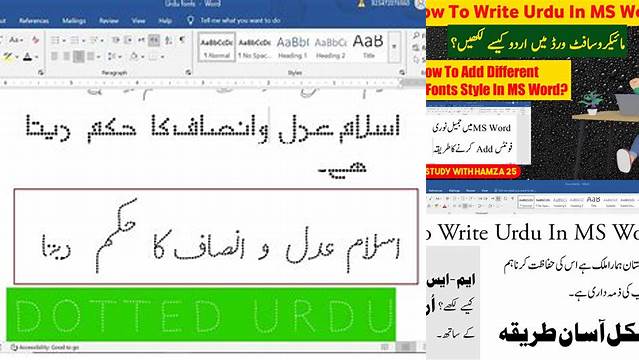
Free Urdu Tracing Fonts For MS Word: Your Download Guide
Hey everyone! Today, we're diving into something super cool for all you Word users out there who love working with Urdu. We're talking about Urdu tracing fonts for MS Word free download. If you're into calligraphy, design, or just want to make your Urdu documents look extra special, finding the right fonts is key. And guess what? You don't need to break the bank to get awesome ones! This guide is all about helping you find and download those perfect Urdu tracing fonts that will make your Microsoft Word projects pop. We'll cover what they are, why you might need them, and most importantly, where you can snag them for free. So, grab your favorite drink, get comfy, and let's explore the fantastic world of Urdu fonts together! It’s going to be a breeze, I promise!
Understanding Urdu Tracing Fonts for MS Word
Alright guys, let's get down to business and understand what exactly we mean by Urdu tracing fonts for MS Word. Think of tracing fonts as those special typefaces designed to guide you through writing or calligraphy. They often have a distinct outline or a clear, bold stroke that makes it easier to follow the letterforms. For Urdu, this is particularly useful because the language has beautiful, flowing calligraphy styles. These fonts essentially provide a template, a guide for you to trace over, either by hand if you print them out, or digitally within MS Word itself. The beauty of using them in Word is the flexibility it offers. You can adjust the size, color, and even layer other effects on top of these tracing fonts. Imagine creating stunning invitations, personalized greeting cards, or educational materials for learning Urdu calligraphy – tracing fonts are your secret weapon! They simplify the process, making it accessible even for beginners who might be intimidated by traditional calligraphy tools. Plus, when you're looking for Urdu tracing fonts for MS Word free download options, you're opening up a world of creative possibilities without any cost. It’s all about making your Urdu text look amazing, whether you’re a student, a designer, or just someone who appreciates the elegance of the Urdu script. These fonts are designed to help you achieve that professional, calligraphic look with ease, directly within your familiar Word environment. So, when we talk about tracing fonts, we’re talking about a tool that bridges the gap between simple typing and artistic expression in the Urdu language, all accessible through your favorite word processor.
Why You Need Urdu Tracing Fonts in MS Word
So, why exactly should you be on the hunt for Urdu tracing fonts for MS Word free download? Let me tell you, the reasons are plentiful, especially if you engage with the Urdu language in any meaningful way. Firstly, for educators and students, these fonts are absolute game-changers. Imagine teaching younger kids how to write Urdu letters. Instead of plain, static text, you can provide worksheets with beautifully designed tracing fonts that make learning fun and engaging. Students can print these out and practice their penmanship, following the clear strokes. For those studying Urdu calligraphy, tracing fonts offer a digital practice ground. You can type out words or sentences in a tracing font, print it, and then practice your strokes over the provided guides. It’s a fantastic way to improve accuracy and learn the correct flow of the script without needing expensive calligraphy pens or paper right away. Secondly, if you're a graphic designer or someone who creates flyers, posters, or social media content in Urdu, these fonts can add a unique, artistic flair. Instead of relying solely on standard fonts, you can use tracing fonts to create custom headings or decorative elements that stand out. Think about creating a wedding invitation with elegant Urdu calligraphy – a tracing font can be the base for this. You can even use them to create unique logos or branding elements. Thirdly, for personal use, maybe you want to write a heartfelt letter to a loved one in beautiful Urdu script, or perhaps you're crafting personalized gifts. Using tracing fonts adds a touch of elegance and personal effort that typed text alone often lacks. It shows you’ve gone the extra mile to make your message special. The accessibility of finding Urdu tracing fonts for MS Word free download means these benefits aren't limited to professionals; anyone can elevate their Urdu document creation. It’s about enhancing the aesthetic appeal, improving the learning process, and adding a layer of artistic expression to your written Urdu. These fonts are incredibly versatile tools that can significantly upgrade the quality and impact of your Urdu-related projects, making them a must-have for anyone serious about their Urdu typography.
Using Urdu Tracing Fonts for Calligraphy Practice
Let’s talk about one of the most popular uses for these fonts, guys: practicing Urdu calligraphy. If you’ve ever admired the beautiful, flowing script of Urdu calligraphy but felt intimidated by learning it traditionally, then Urdu tracing fonts for MS Word free download are your best friend! These fonts provide a digital template, mimicking the precise strokes of professional calligraphers. The core idea is simple: you use MS Word to type out words, phrases, or even full sentences in your chosen tracing font. Then, you can adjust the size to make it as large as you need for comfortable practice. Print these out on good quality paper – perhaps a slightly thicker paper that can handle ink well. Now you have your guide! Grab your calligraphy pen, ink, and start tracing over the printed letters. The fonts are designed with clear outlines and often show the stroke direction, making it much easier to learn the correct way to form each character. It’s like having a personal calligraphy tutor available 24/7. This method is incredibly effective because it helps you develop muscle memory for the correct letterforms and stroke order, which is crucial in mastering calligraphy. You can repeat pages and pages of practice, experimenting with different tracing fonts to see which style you prefer. Many tracing fonts are based on traditional scripts like Nastaliq, so you’re learning authentic styles. For those who prefer a digital approach, you can even use these tracing fonts within graphic design software like Adobe Illustrator or Photoshop. You can import the Word document or the text itself, trace over it digitally with a stylus on a tablet, or use the font as a base layer for digital art. The accessibility of Urdu tracing fonts for MS Word free download makes this learning process affordable and convenient. It democratizes the art of calligraphy, allowing anyone with a computer and a printer (or a digital drawing tool) to start their journey. It’s a fantastic way to connect with the rich cultural heritage of Urdu script and develop a beautiful, artistic skill. So get printing and tracing, you’ll be amazed at how quickly you improve!
Creative Ways to Use Urdu Tracing Fonts
Beyond just calligraphy practice, think about the seriously cool ways you can leverage Urdu tracing fonts for MS Word free download in your creative projects. These fonts aren't just for learning; they’re incredibly versatile tools for design! Let’s brainstorm some ideas, shall we? First off, consider personalized stationery. Imagine creating beautiful letterheads, compliment slips, or even personalized notebook covers using elegant Urdu tracing fonts. You can type your name or a meaningful phrase in a tracing font, perhaps convert it to an image or PDF, and then incorporate it into your designs. It adds a touch of sophistication and personal flair that generic fonts just can't match. Another fantastic application is in event invitations and greetings cards. Whether it's a wedding, birthday, Eid, or any special occasion, using tracing fonts for headings or key phrases in Urdu adds a unique, handcrafted feel. You could use a bold tracing font for the main announcement and then a simpler font for the details. Think about creating unique wall art or posters. Type out a favorite Urdu quote, poem, or verse in a tracing font, experiment with different sizes and layouts, and then print it. You can even layer colors or textures behind the outlined font to create stunning visual pieces. For crafters, these fonts are brilliant for use with cutting machines like Cricut or Silhouette. You can design text in Word using a tracing font, save it as an SVG file (often possible with conversion tools), and then cut intricate Urdu designs for vinyl decals, custom apparel, or scrapbooking projects. Even for educational materials, tracing fonts can be used to create visually appealing flashcards or worksheets that highlight Urdu vocabulary or phrases. The key is to think outside the box. Don't just see them as text; see them as design elements. Experiment with layering, outlines, shadows, and different color combinations within MS Word or other design software. The availability of Urdu tracing fonts for MS Word free download means you can experiment endlessly without worrying about costs. So go ahead, download a few, fire up Word, and let your creativity flow. You might be surprised at the beautiful results you can achieve!
Tips for Choosing the Best Urdu Tracing Fonts
Alright folks, you’ve found a bunch of Urdu tracing fonts for MS Word free download options, but how do you pick the best ones for your project? It’s not just about grabbing the first font you see, guys. Making the right choice can significantly impact the final look and feel of your work. So, let’s talk strategy. First and foremost, consider the purpose of your document. Are you creating educational materials for kids? Then you’ll want a tracing font with clear, simple letterforms that are easy to follow and recognize. If you’re designing a wedding invitation, you might opt for a more ornate, flowing, and elegant tracing font, perhaps one that mimics traditional calligraphy styles like Nastaliq. Readability is key, especially for longer texts. While tracing fonts are often decorative, ensure the basic structure of the Urdu letters remains clear and understandable. Test the font with sample text – write out a few common words or phrases to see how they look. Check for consistency in stroke width and spacing. Look at the style and weight. Some tracing fonts have very fine outlines, while others are bold and chunky. Which suits your design aesthetic better? Also, consider the character set. Does the font include all the necessary Urdu letters, diacritics (like zer, zabbar, pesh), and any special ligatures you might need? Some free fonts might have limited character sets, so it's worth checking if you need specific characters. Previewing the font is essential. Most reputable font sites allow you to type your own text in a preview box before downloading. Use this feature extensively! Type out the words or phrases you plan to use most often. Finally, think about licensing. While you're looking for free downloads, always check the font's license agreement. Some